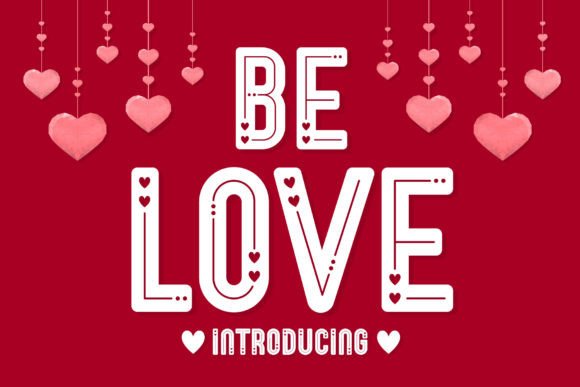
Introducing Be Love Font: A Font That Spreads Love and Happiness
In a world where expressions of affection often get lost in the digital noise, Be Love Font emerges as a beacon of love and joy. This charming decorative font, crafted with meticulous care by the talented Fox7, is not just a collection of letters and symbols; it's an artistic masterpiece that breathes life into your creative endeavors.
Be Love Font is a visual symphony of flowing curves, playful shapes, and delicate details. Its every stroke is infused with warmth and positivity, radiating an aura of happiness that's sure to leave a lasting impression on your audience. Whether you're designing Valentine's Day cards, Mother's Day invitations, or any project that calls for a touch of love, Be Love Font is your perfect companion.
Imagine your words of love and appreciation adorned with the enchanting characters of Be Love Font. Your messages will dance off the screen, captivating hearts with their delightful appearance. Your designs will transform into expressions of pure joy, spreading warmth and happiness wherever they go.
With Be Love Font, you can:
* Create eye-catching logos and branding elements that exude love and positivity.
* Design social media posts and graphics that radiate happiness, leaving a lasting impression on your followers.
* Craft heartfelt invitations, greeting cards, and announcements that convey your love and appreciation in a truly unique way.
* Add a touch of whimsy and charm to your website, blog, or online portfolio, making your content stand out from the crowd.
* Unleash your creativity and let your imagination soar, knowing that Be Love Font will elevate your designs to new heights.